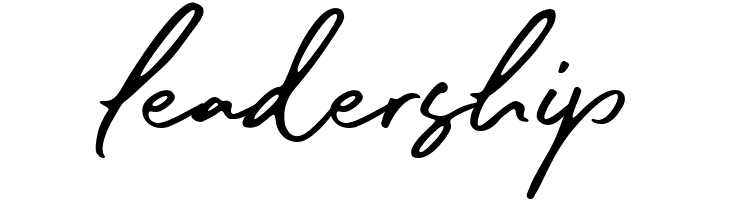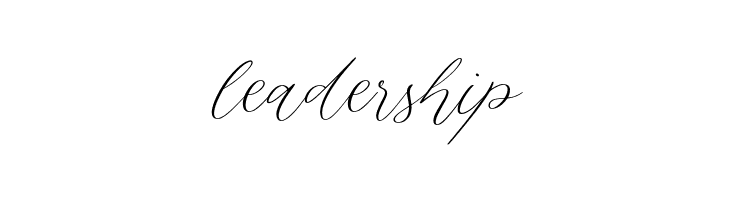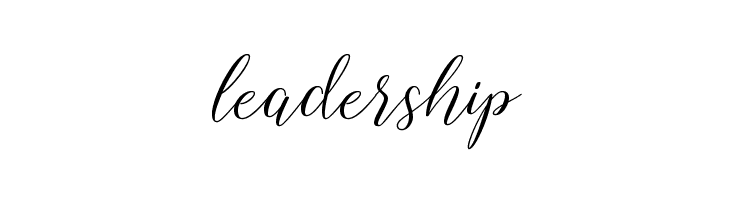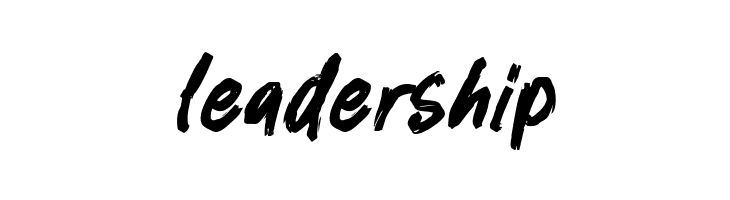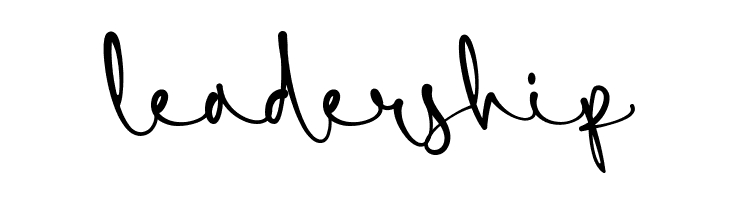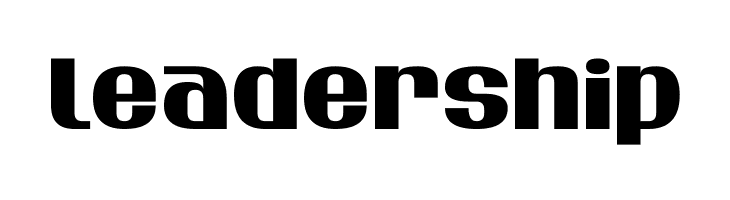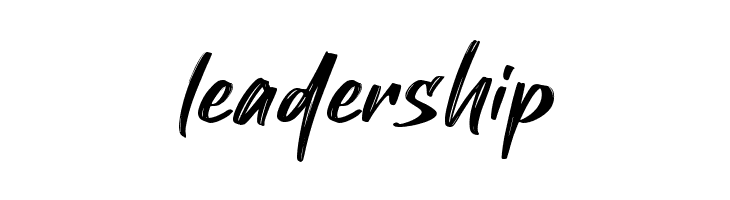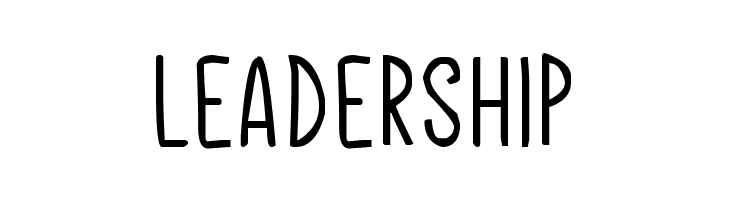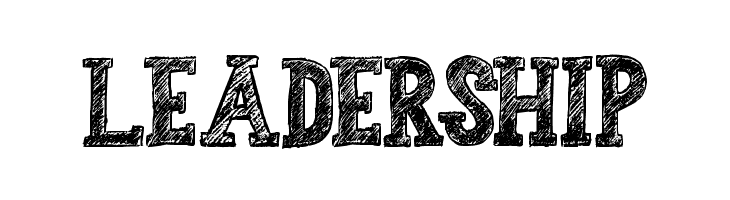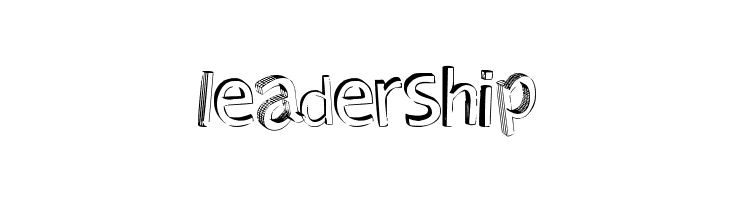
A bold, dynamic handwritten font with textured strokes and energetic flow.
A spooky, dripping font ideal for Halloween themes.
A bold, narrow font with sharp serifs and an elegant, sophisticated style.
A playful, bold font with a bubble-like, outlined style.
A dynamic and flowing script font with elegant curves and artistic flair.
A scratchy, hand-drawn font with a dynamic and edgy appearance.
A rugged, edgy font with sharp, jagged lines and a rebellious aesthetic.
A playful, hand-drawn font with a textured, scribble-like appearance.
A bold, playful font with rounded, bubble-like characters and a whimsical style.
A playful, bubbly outline font with a whimsical, cartoonish style.
A bold, outlined slab serif font with a three-dimensional effect.
A modern, geometric sans-serif font with a futuristic and sleek design.
A playful, casual handwritten font with smooth curves and a friendly appearance.
A whimsical, hand-drawn font with wavy, textured outlines and playful character shapes.
A playful, handwritten font with fluid, connected letterforms and a casual aesthetic.
A bold, geometric font with angular shapes and a modern style.
A playful and elegant handwritten font with smooth, flowing lines.
A rugged, distressed font with a hand-drawn, edgy style.
A lively handwritten font with a playful and modern style.
A playful, bold, hand-drawn font with a shadow effect.
A playful, bold handwritten font with smooth curves and rounded edges.
A dynamic, brush-style font with expressive, hand-drawn strokes.
An elegant and flowing script font with graceful curves and expressive strokes.
A dynamic, brush-style font with expressive, energetic strokes.
A bold, slanted font with a textured, dynamic style.
A bold, brush script font with a textured, hand-painted look.
An elegant script font with flowing, cursive strokes and graceful curves.